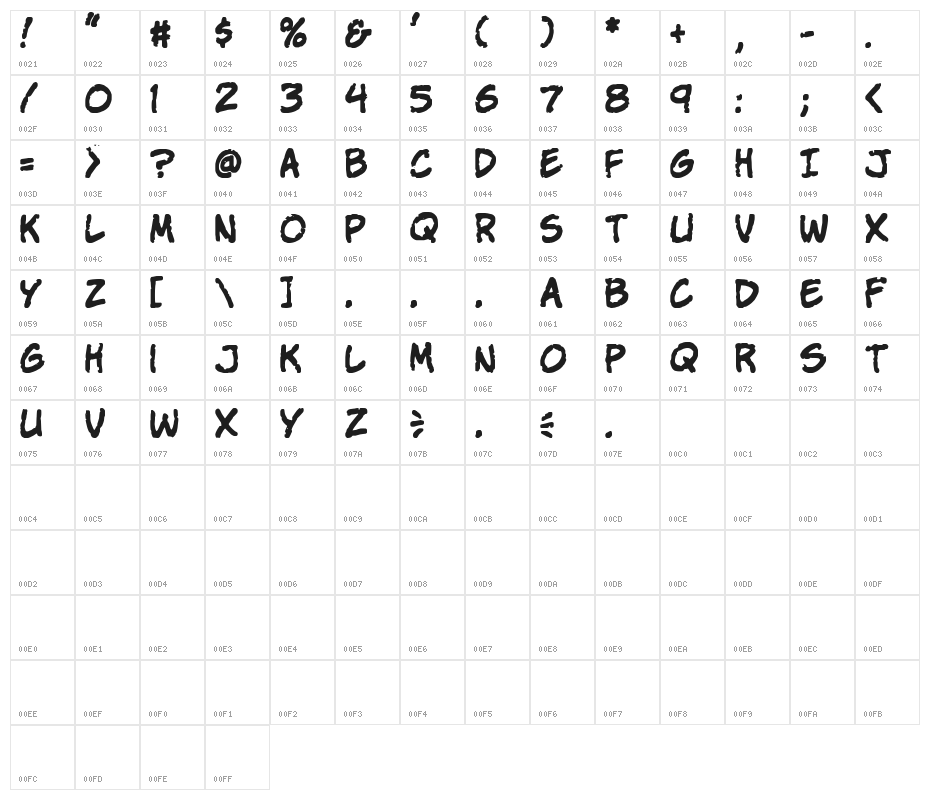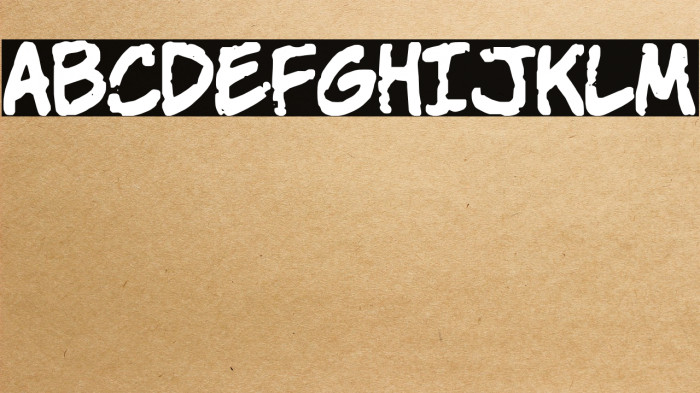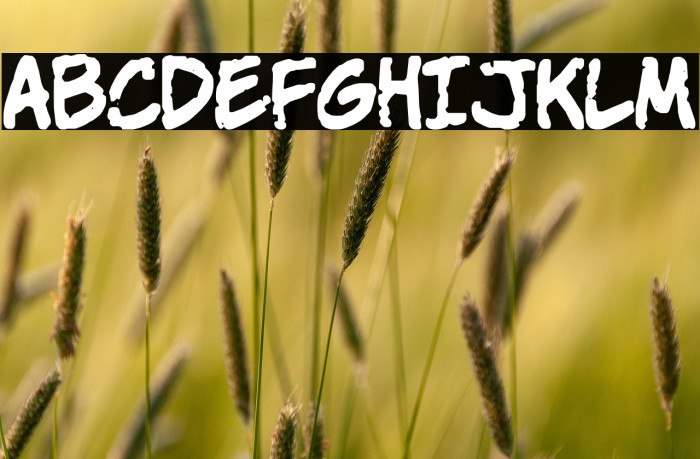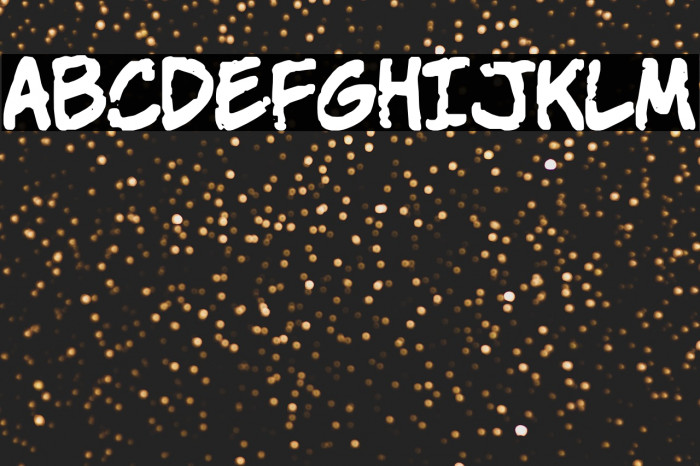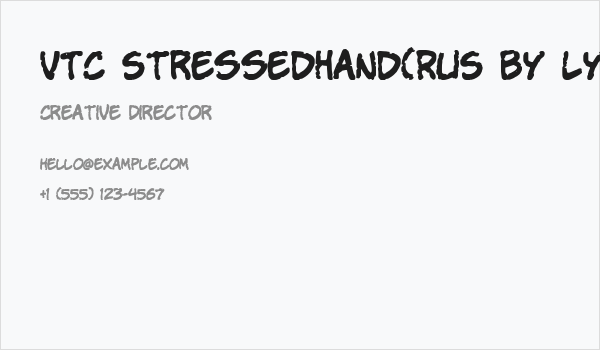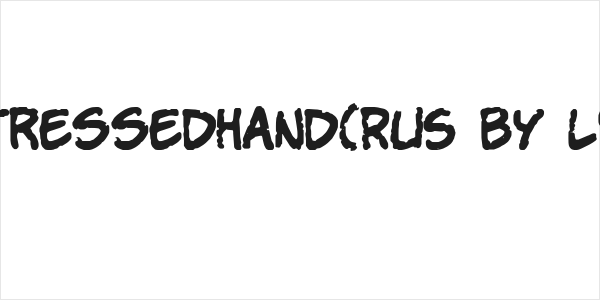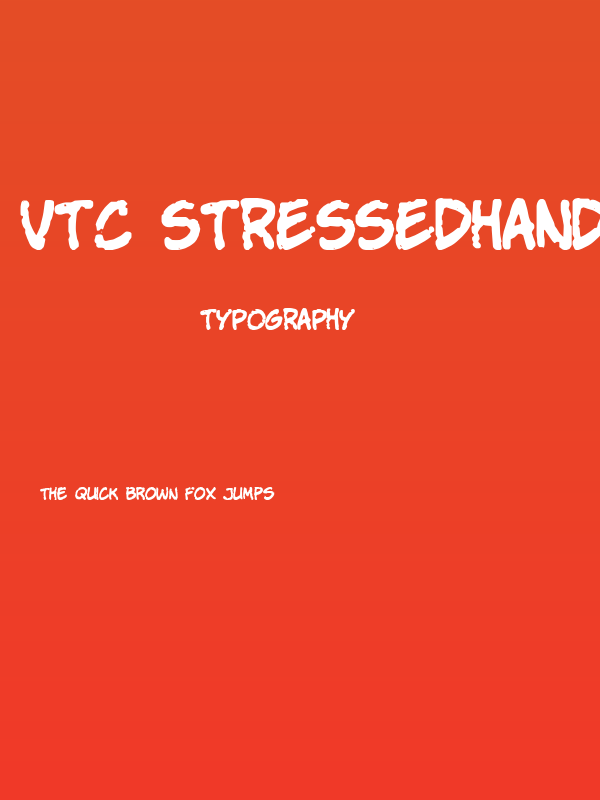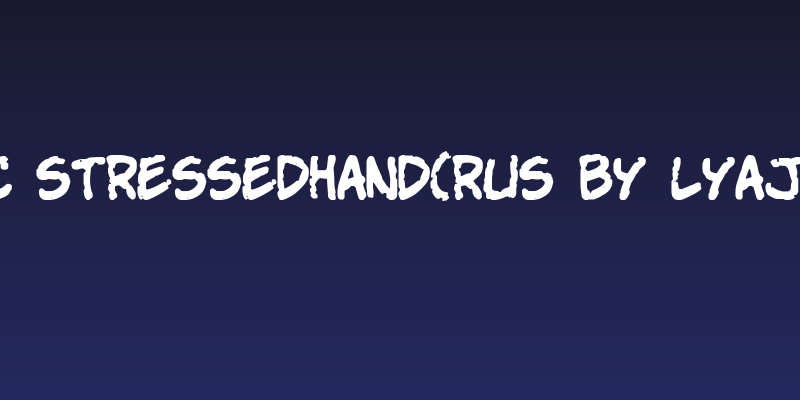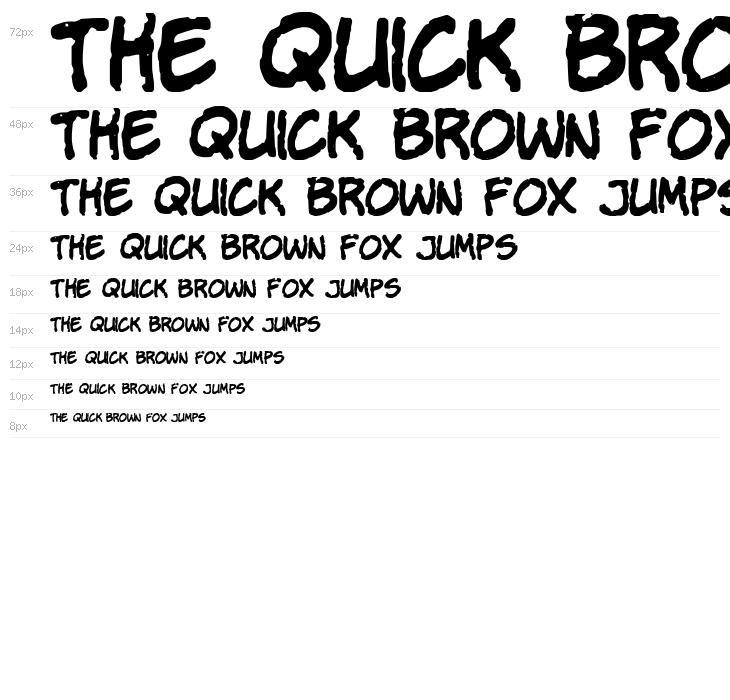
VTC StressedHand(RUS BY LYAJKA) Font
VTC StressedHand(RUS BY LYAJKA) Description
This font exudes a bold and dynamic presence with its thick, brush-like strokes that convey a sense of urgency and energy. The characters are slightly irregular, giving it a hand-drawn appearance that adds a personal touch. The uppercase and lowercase letters maintain a consistent style, with rounded edges and a slightly distressed texture that enhances its expressive nature. The numerals and special characters follow the same design principles, ensuring uniformity across all glyphs. This font is ideal for projects that require a strong, impactful visual statement.
| Proposed Projects | Ideal for posters, album covers, graffiti art, and any project needing a bold, expressive typeface. |